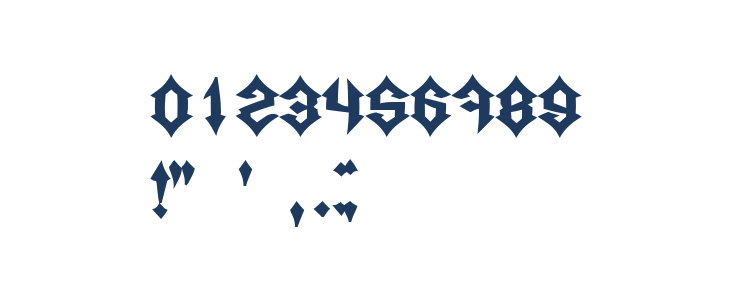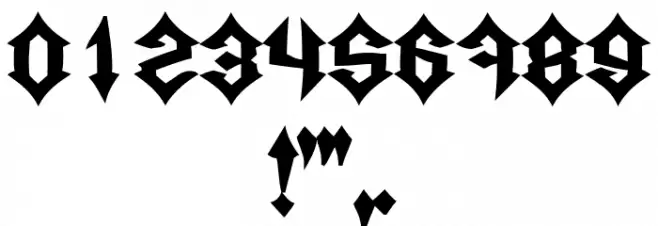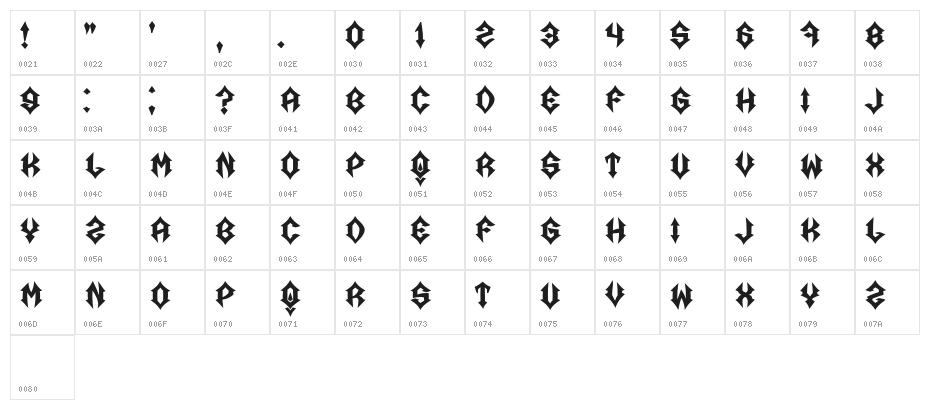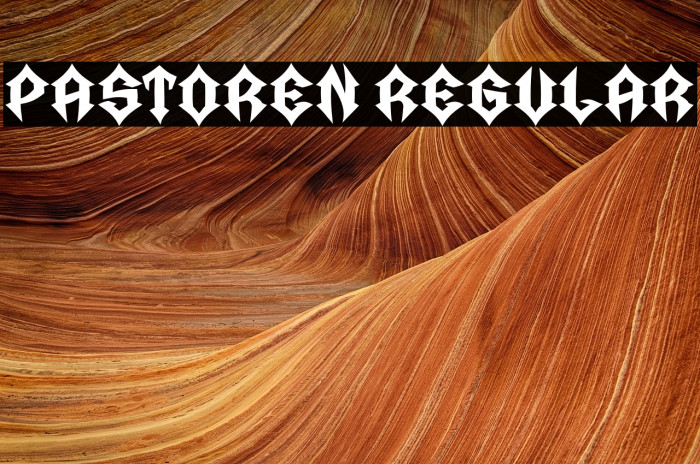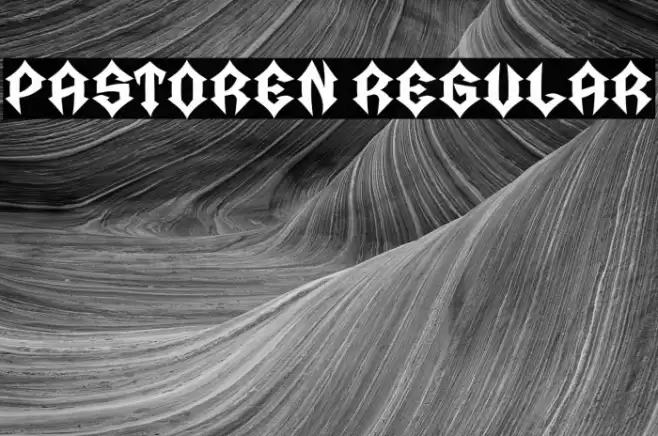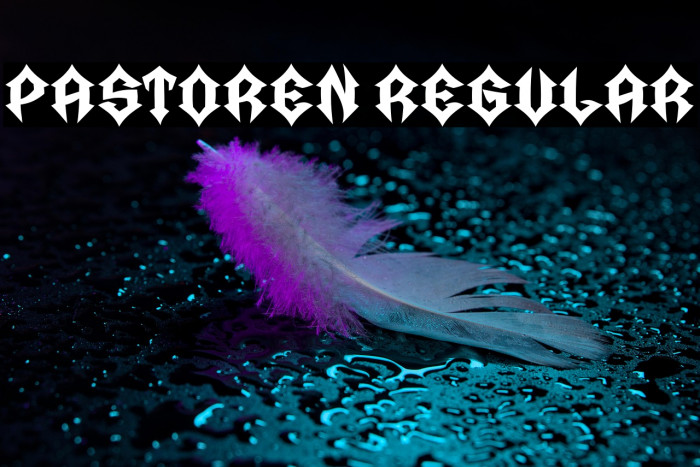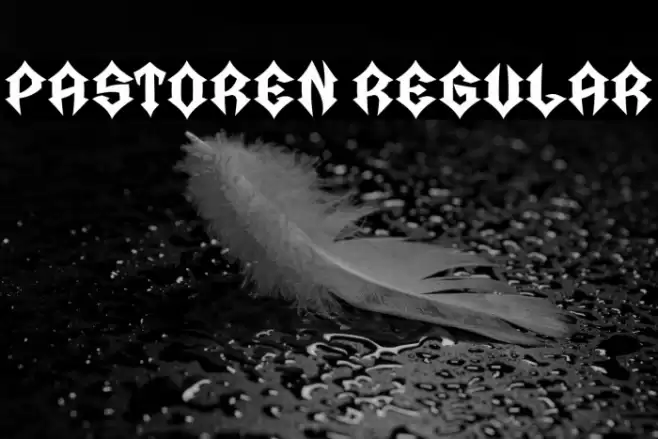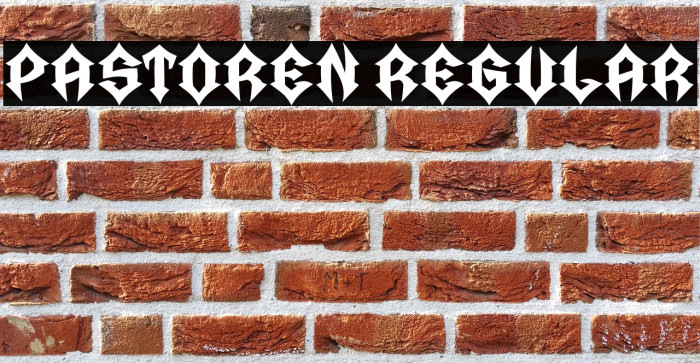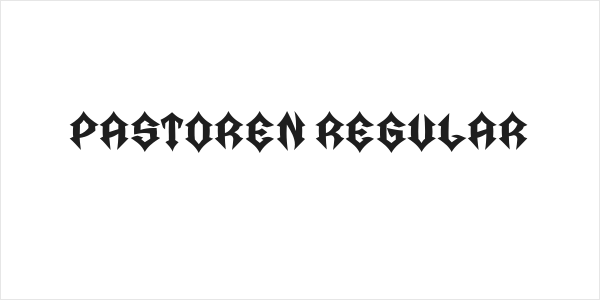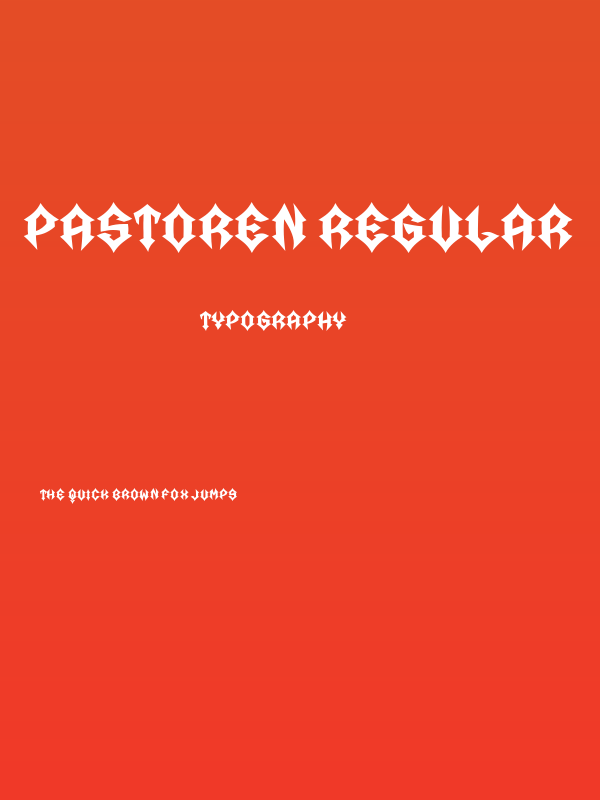
Pastoren Regular Font
Pastoren Regular Description
This font exhibits a bold and striking design, characterized by sharp, angular edges and a gothic-inspired aesthetic. The uppercase and lowercase letters maintain a consistent style, featuring pointed serifs and intricate detailing that evoke a sense of medieval or fantasy themes. The numerals and special characters are equally elaborate, ensuring a cohesive look across all glyphs. The overall appearance is dramatic and eye-catching, making it suitable for projects that require a strong visual impact.
| Proposed Projects | Ideal for fantasy-themed designs, video game titles, book covers, posters, and branding that requires a dramatic flair. |